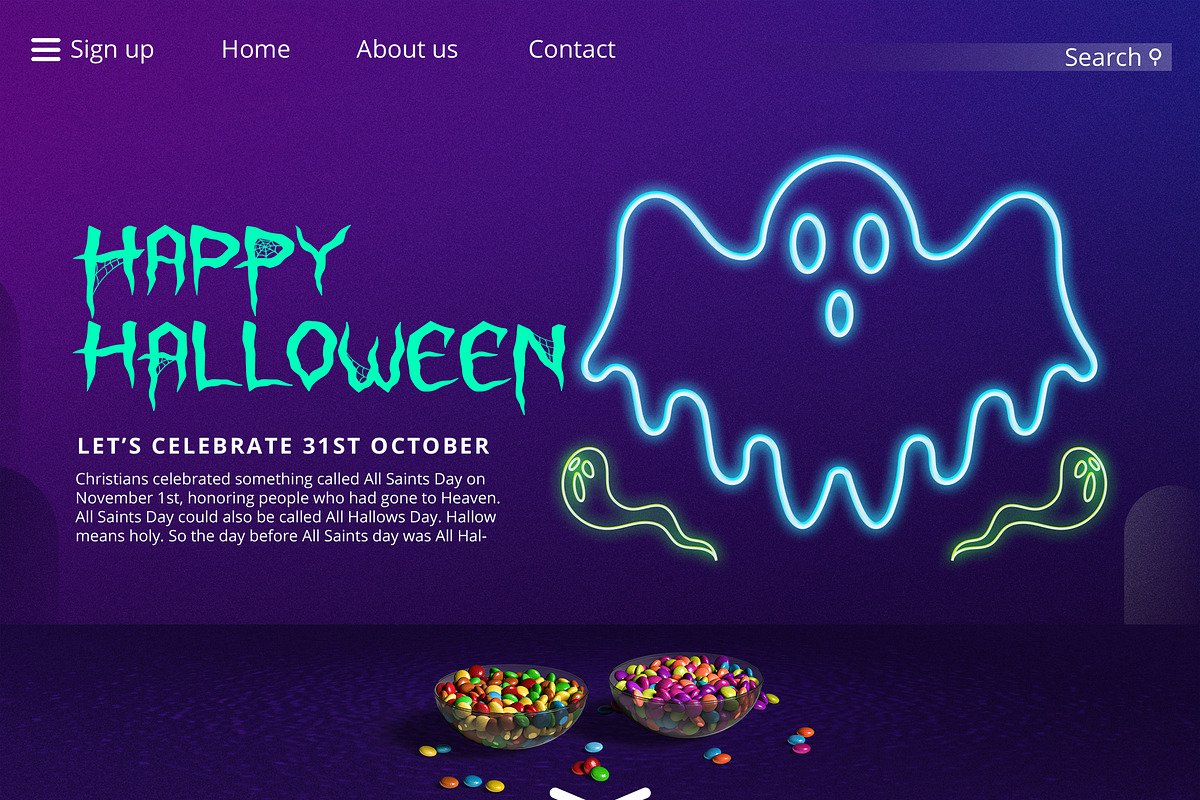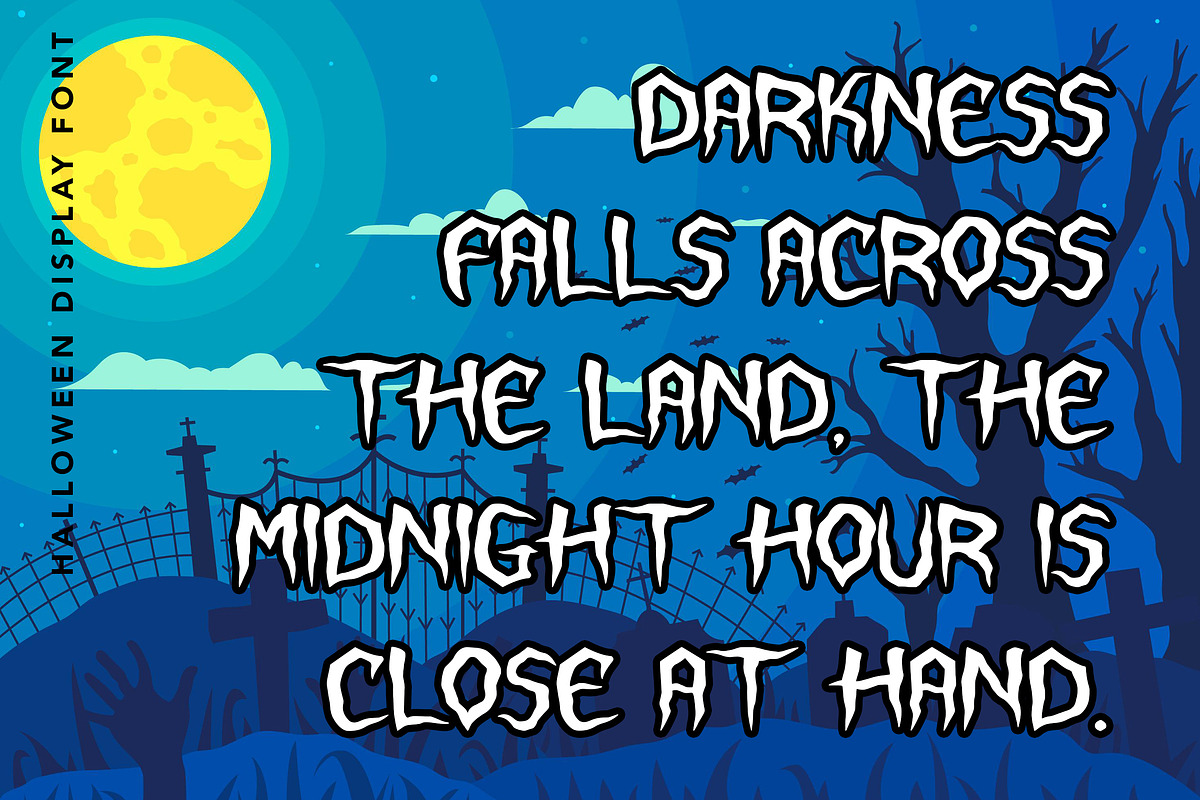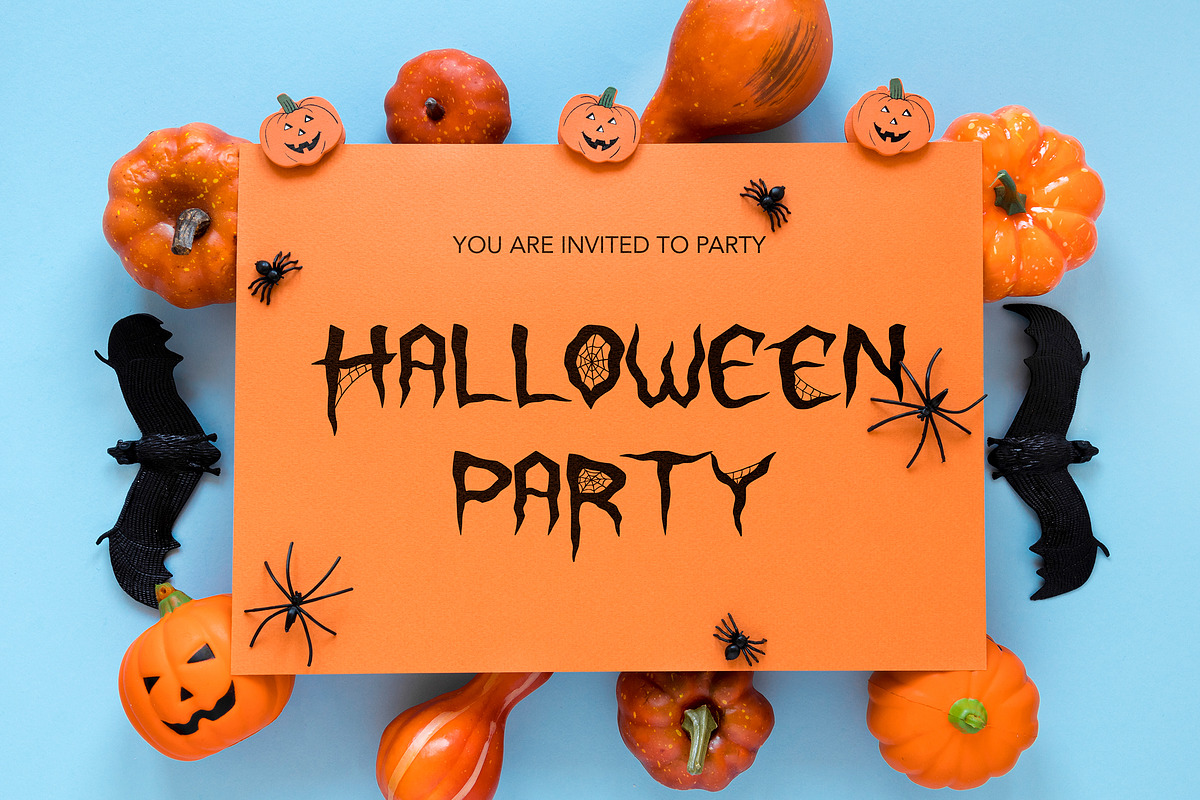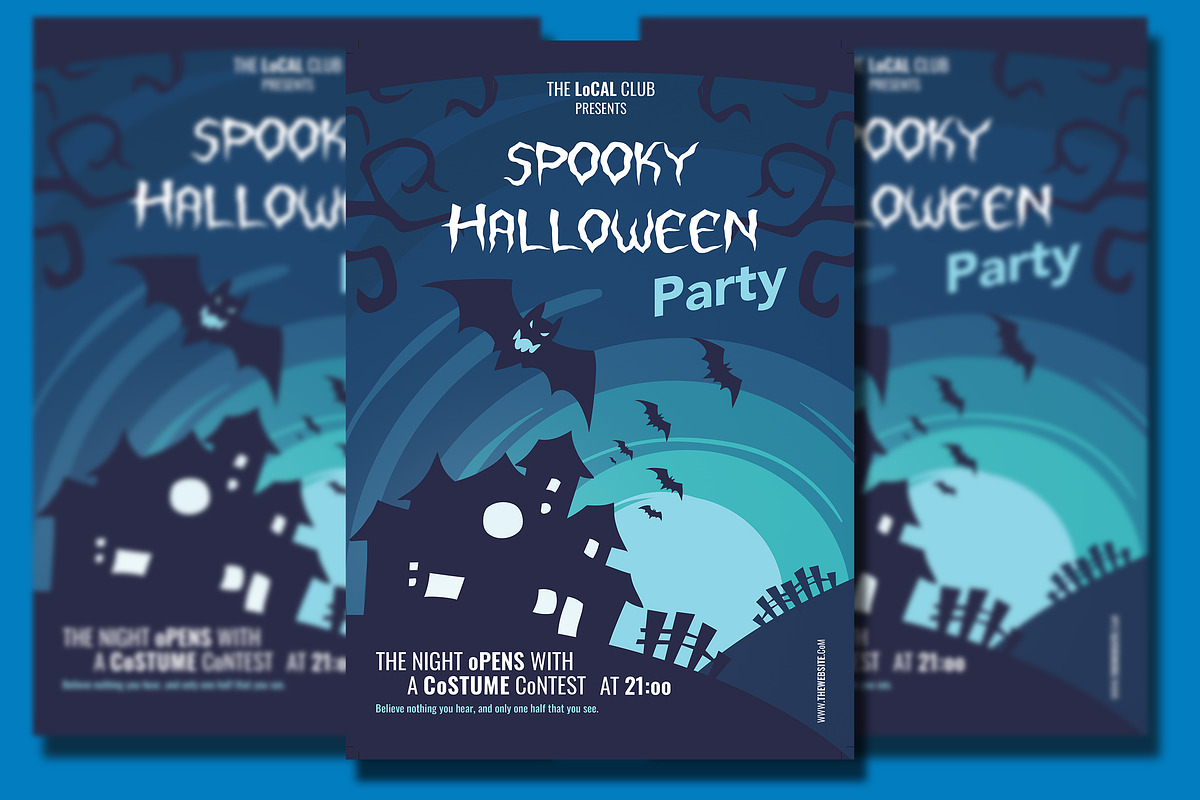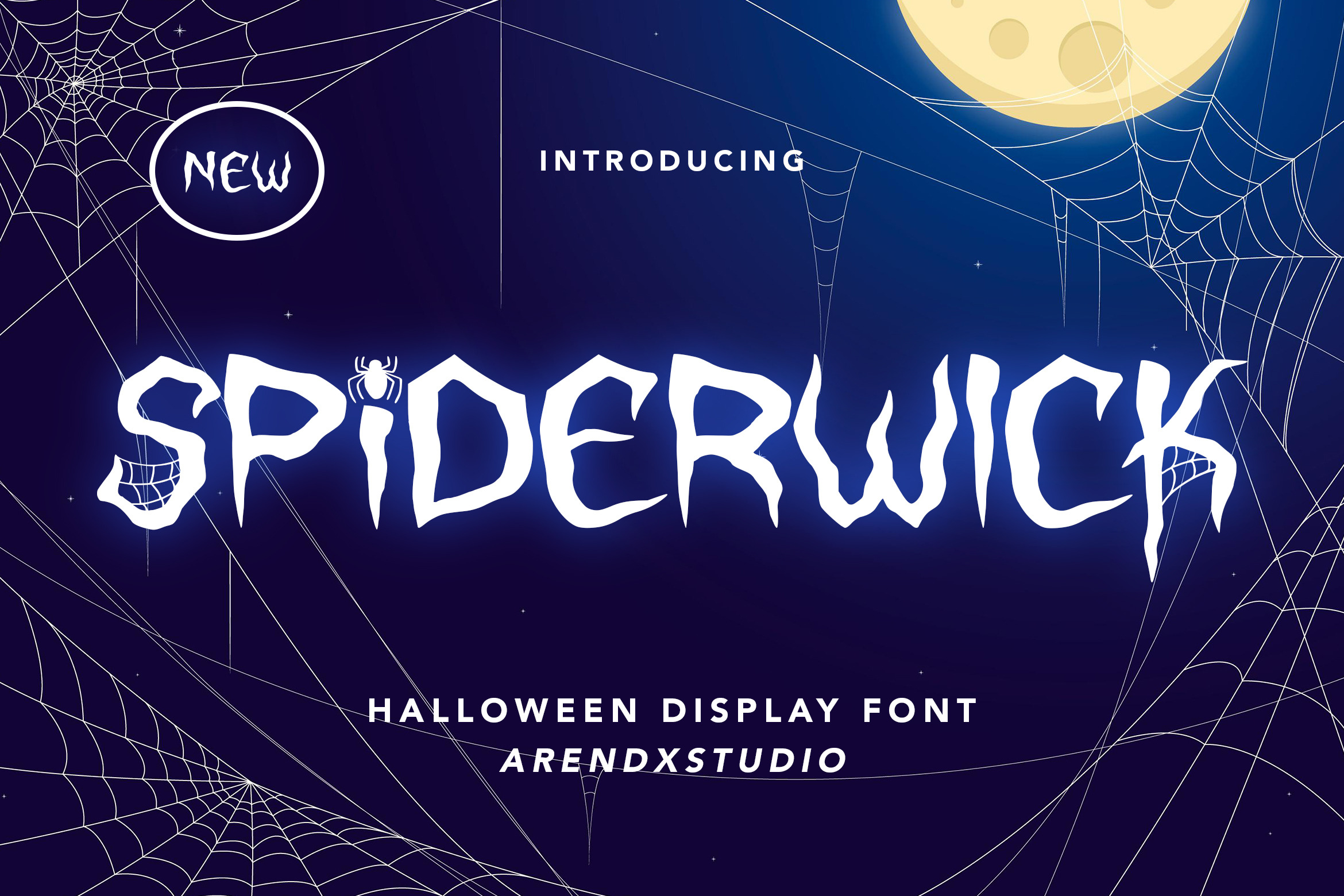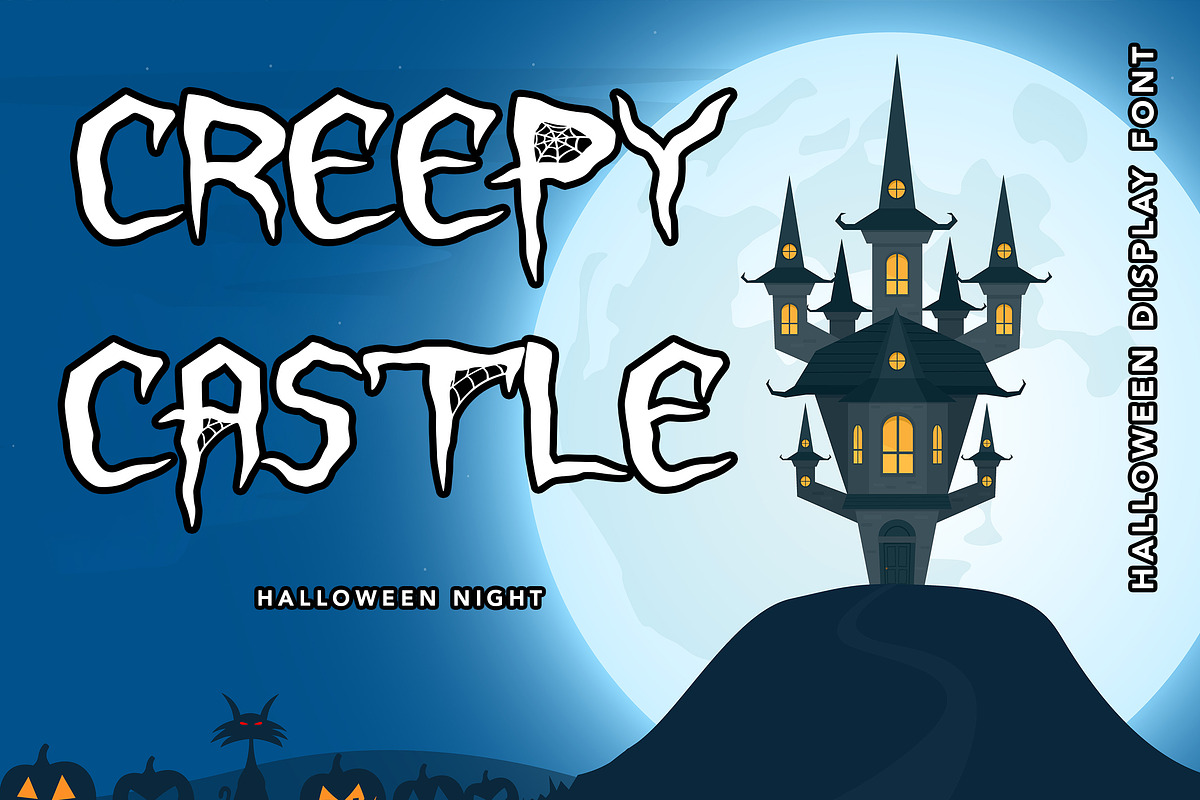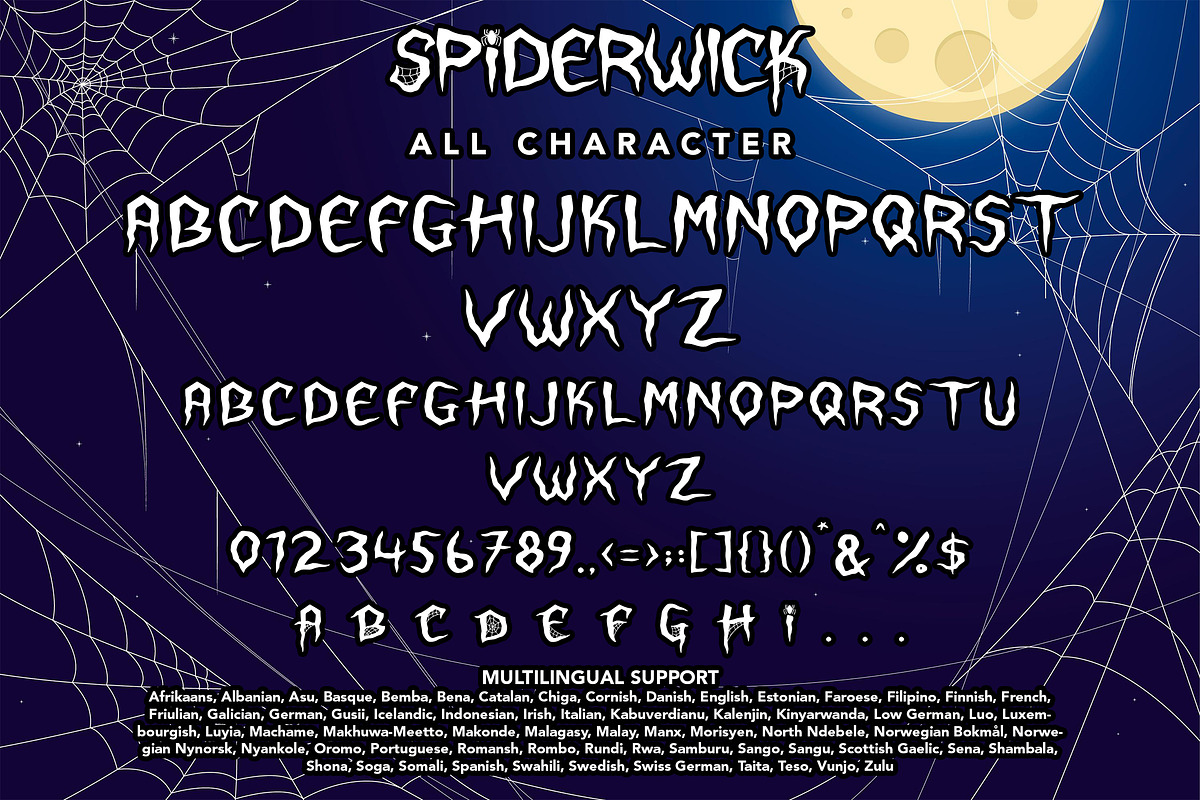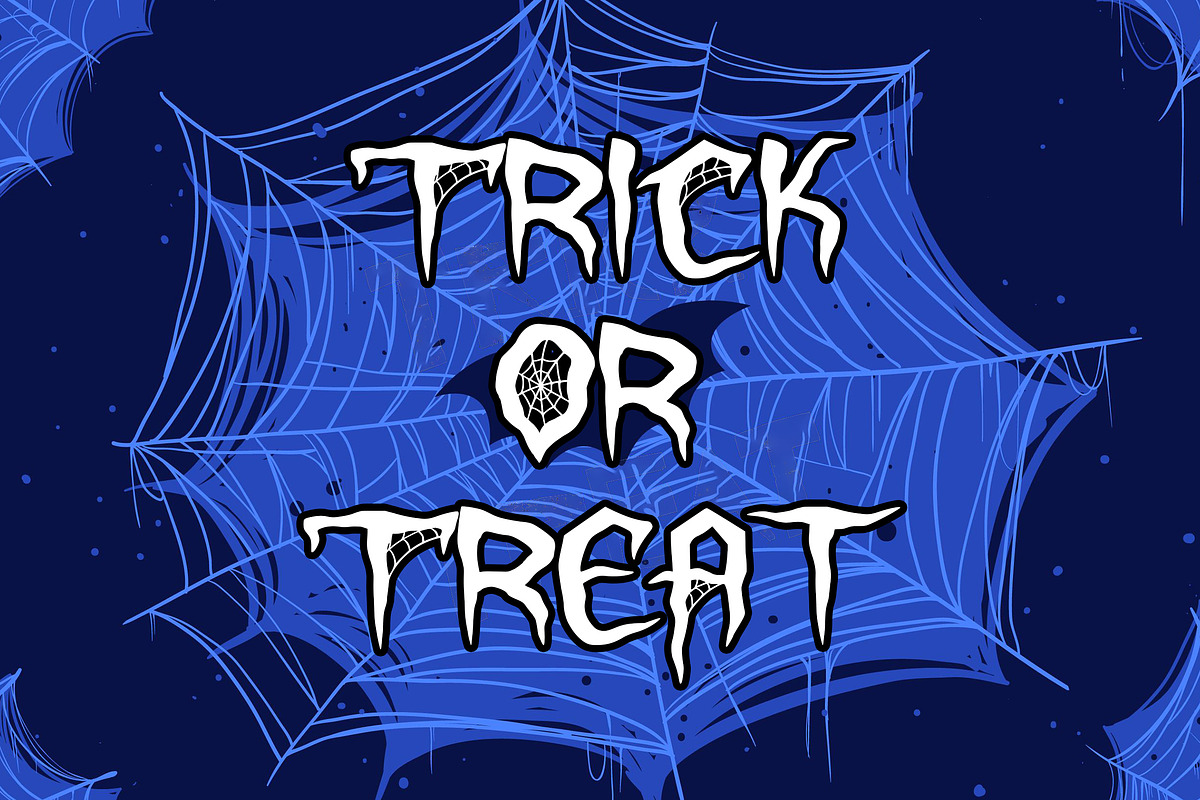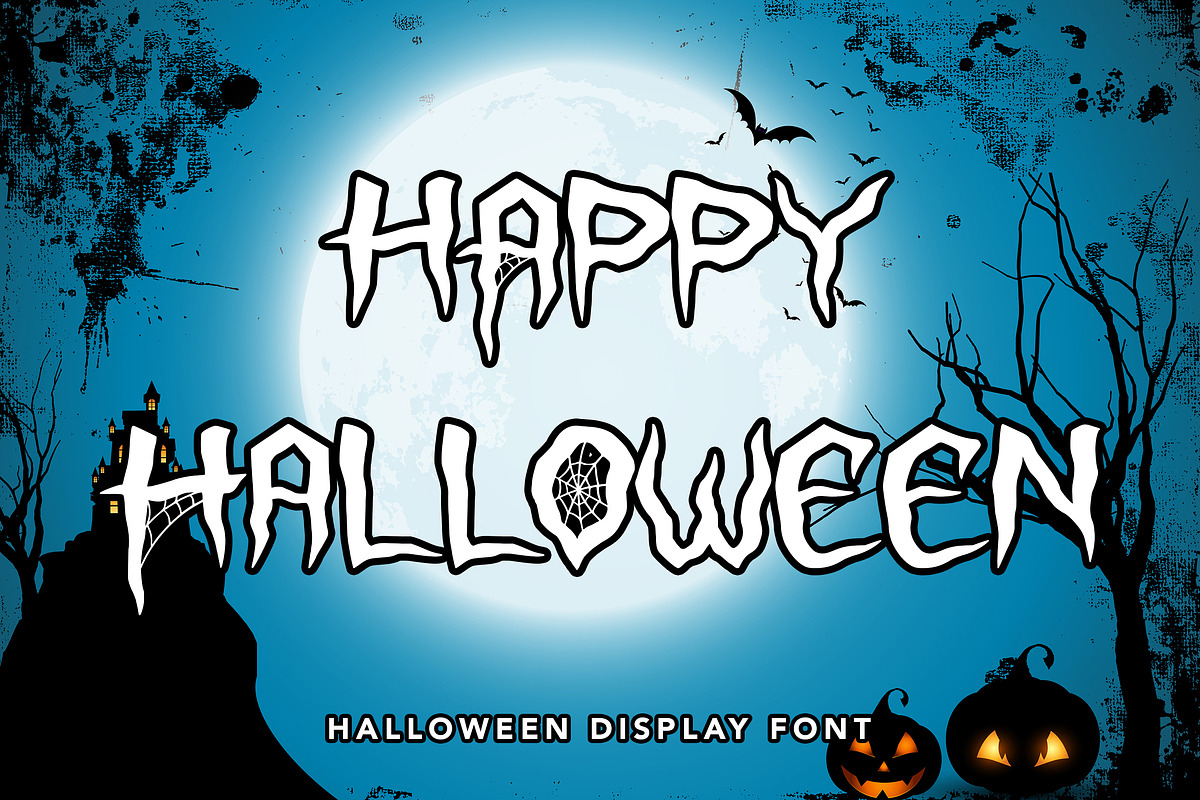
Spiderwick - Halloween Display Font
Spiderwick - Halloween Display Font is a display font that is inspired by horror and gothic style because its shape is very unique and is perfect for any project that you will use with this theme.
Spiderwick came with opentype features such stylistic alternates, stylistic sets & ligatures good for logotype, poster, badge, book cover, tshirt design, packaging and any more.